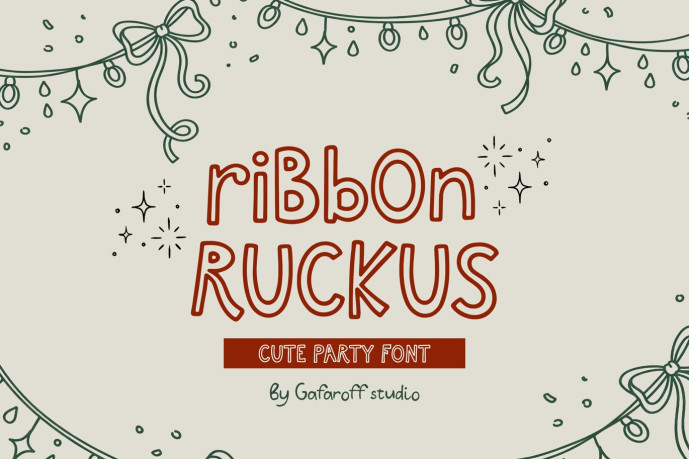
Ribbon Ruckus is a cute, hand-drawn double-outline font with a playful, slightly wonky marker feel. Perfect for birthday invites, party prints, baby showers, greeting cards, stickers, and fun headline designs.